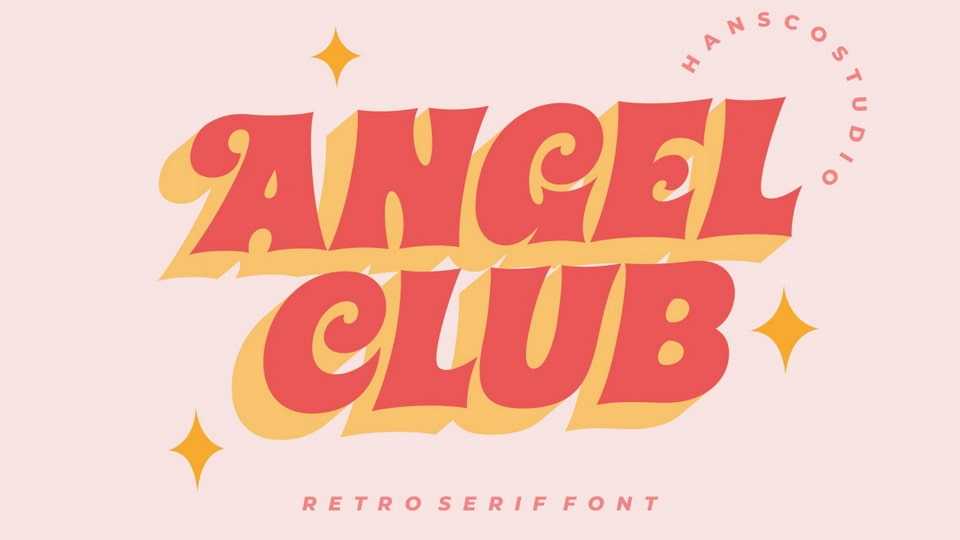
Download Angel Club font, a bold vintage display serif typeface. Use Angel Club font to add that special retro touch to any design idea you can think of!
Designer: HansCo